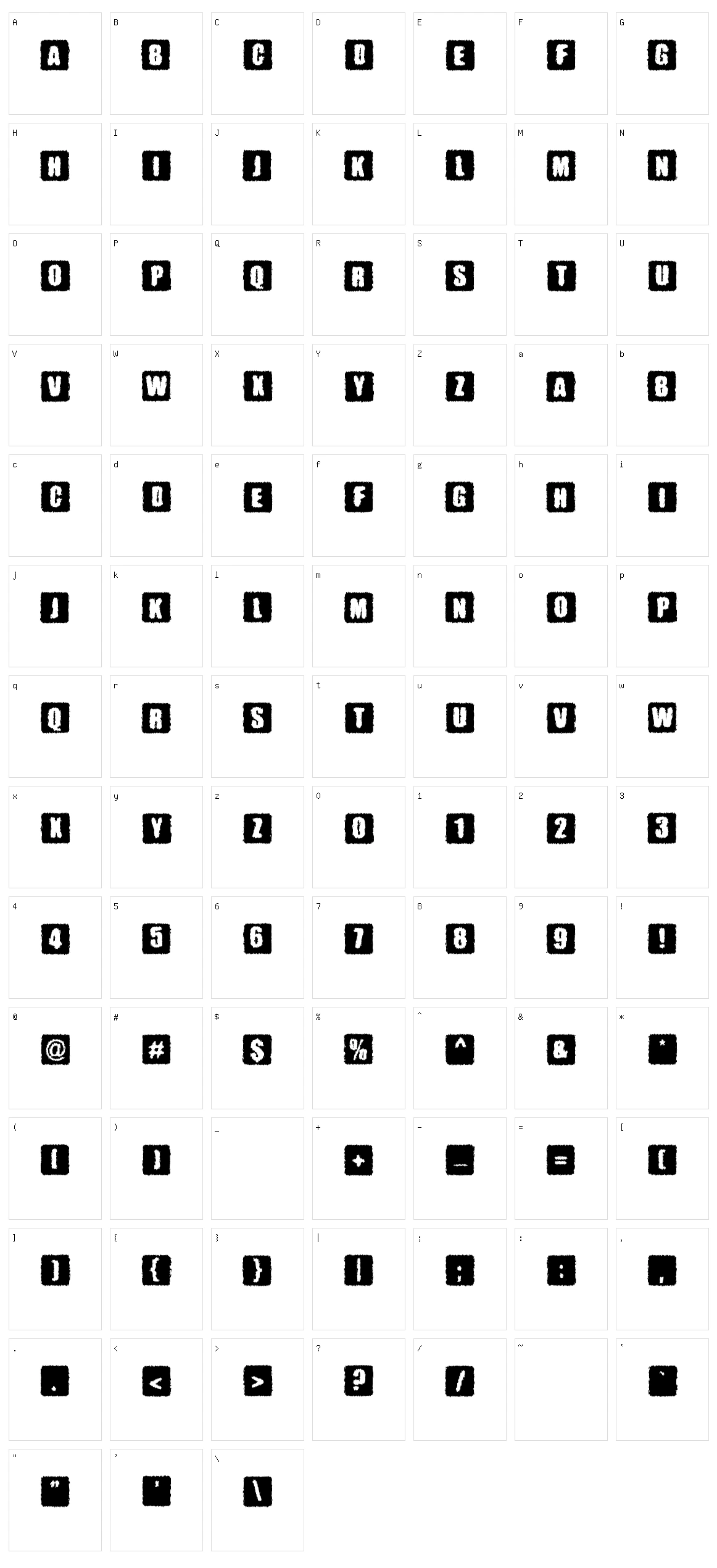
The free font Parkinsonism is carefully designed by Woodcutter, showcasing a thoughtful balance of creativity and usability and falls under the Eroded font style. When you download the ZIP file, it contains only 349.14 KB of font files, making it lightweight and quick to download. Please review the license details below to understand permitted usage and distribution rights. If license information is not available, we recommend using this font for personal projects only or contacting the author directly for commercial usage permissions.